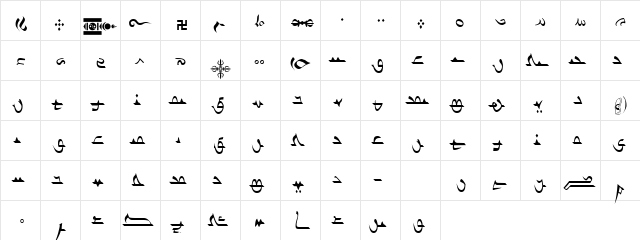
Ulanbatar Regular
Design Context for Ulanbatar Typeface
Ulanbatar takes a measured approach to typography — its balanced proportions and neutral character make it a reliable workhorse for both digital and print work.